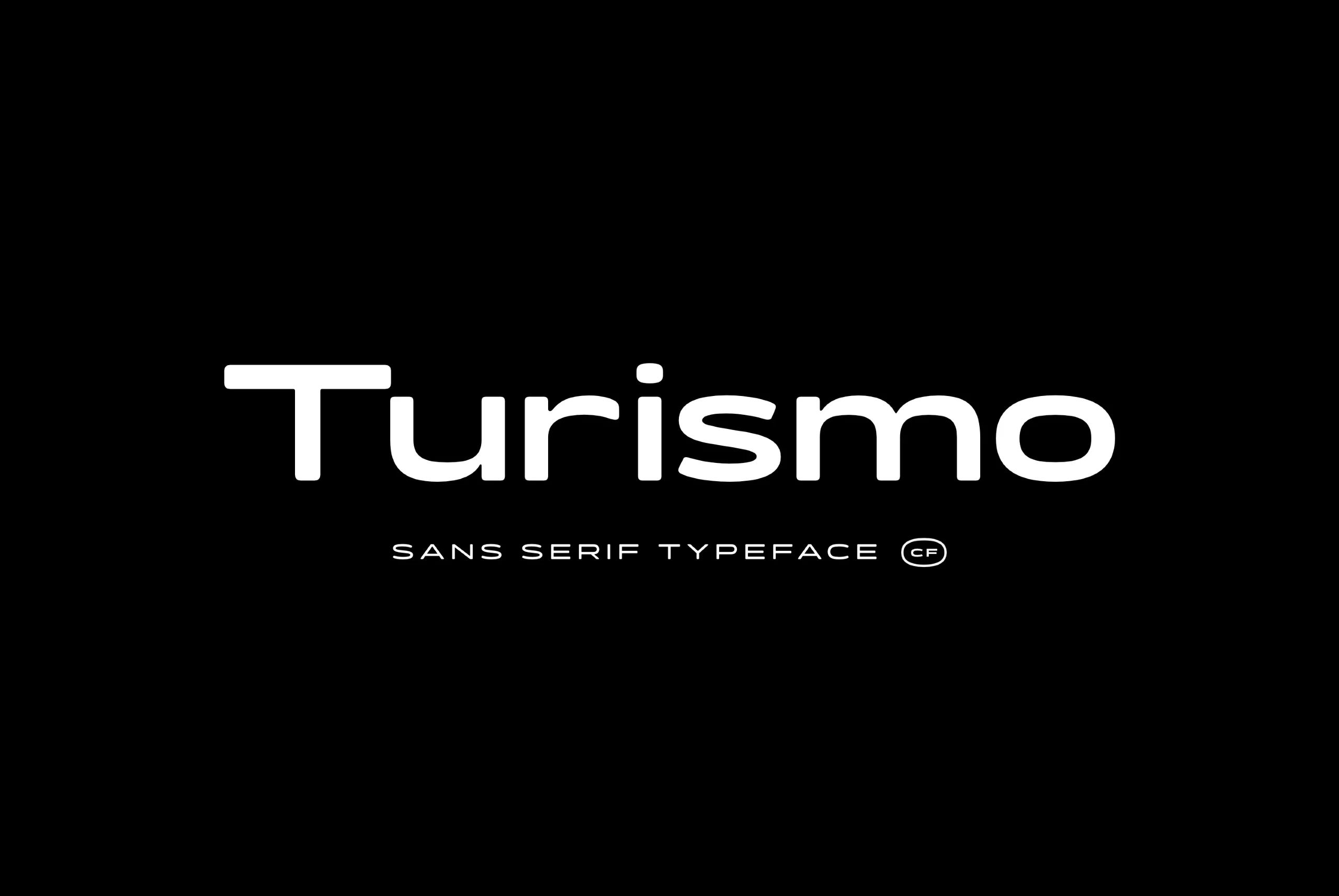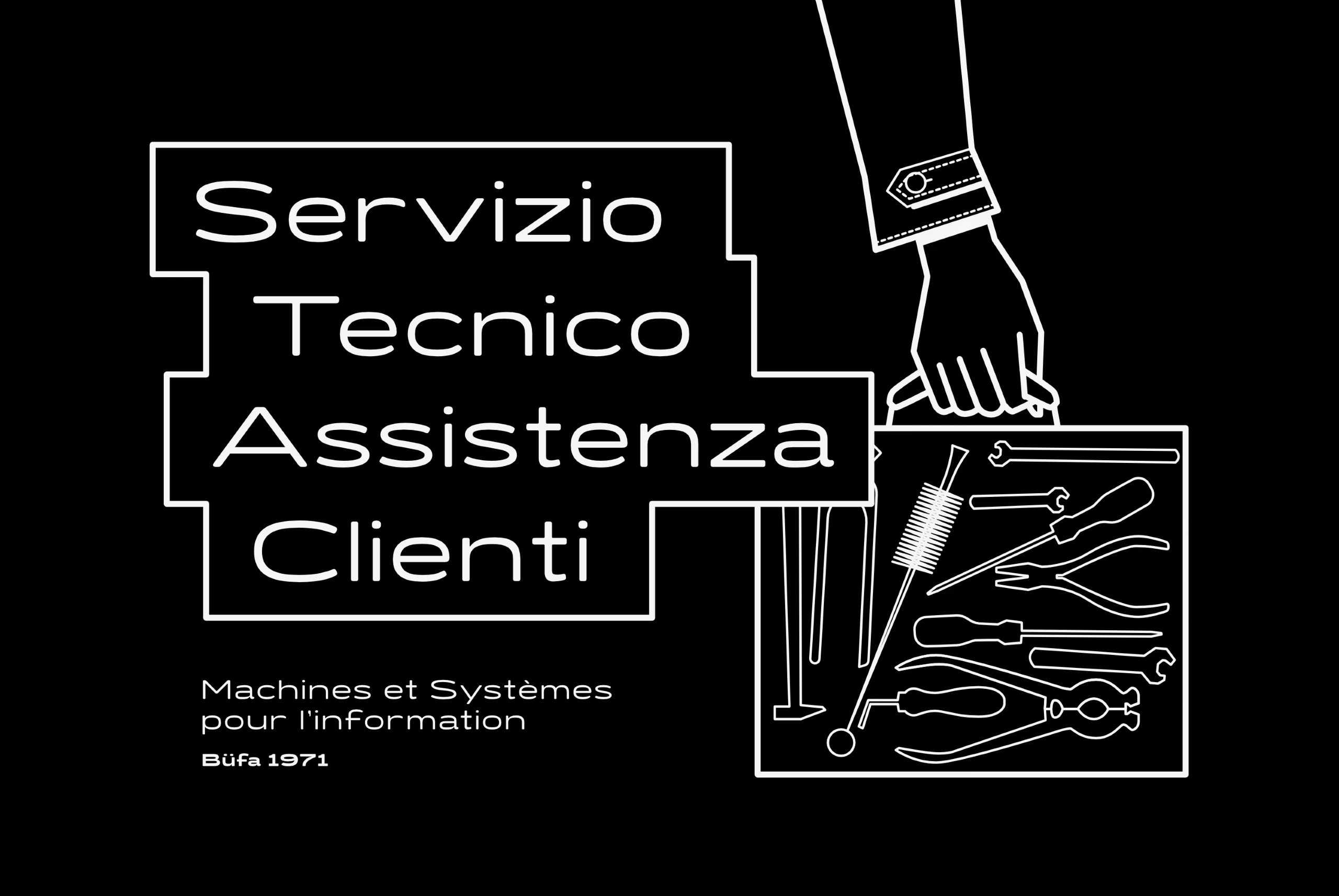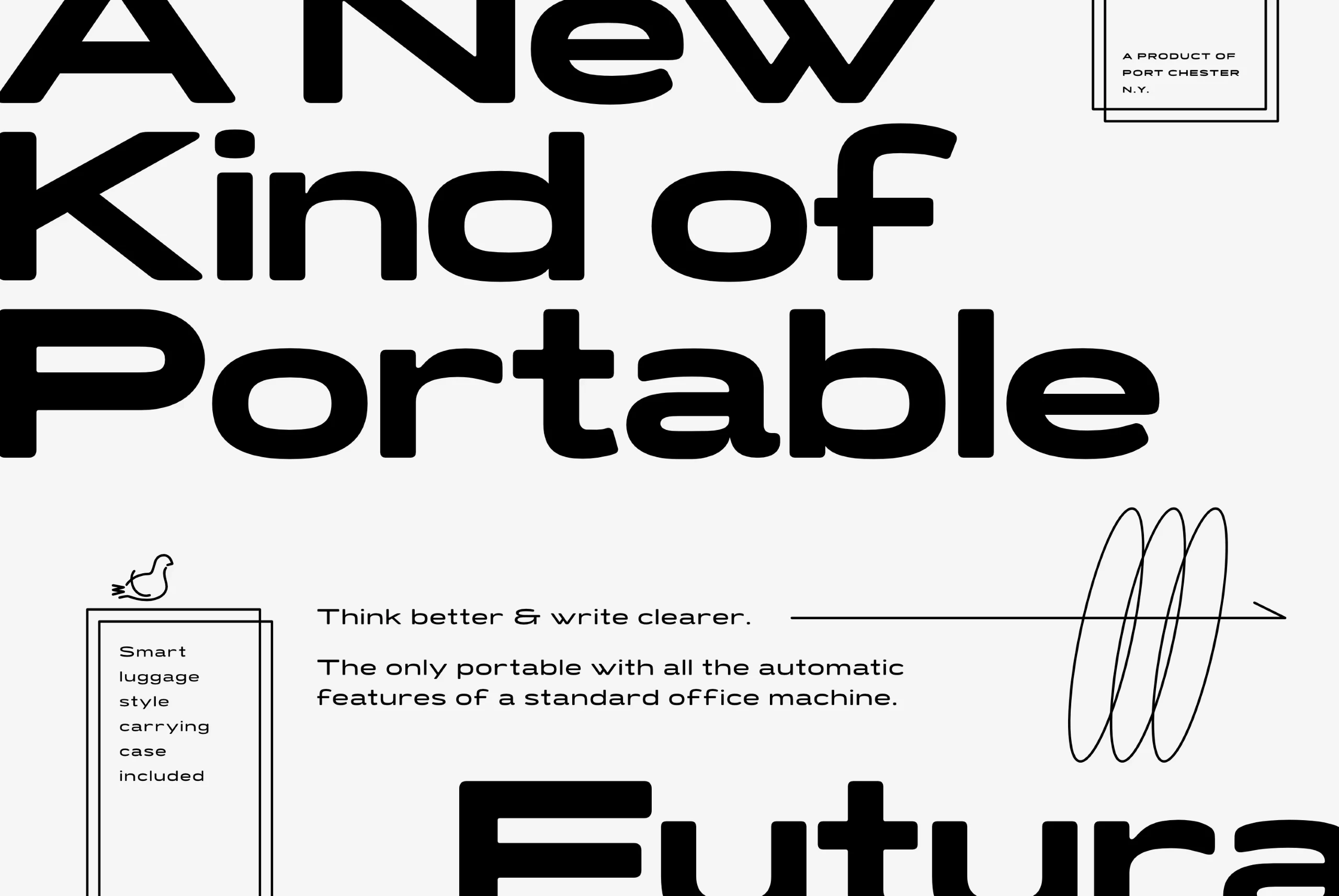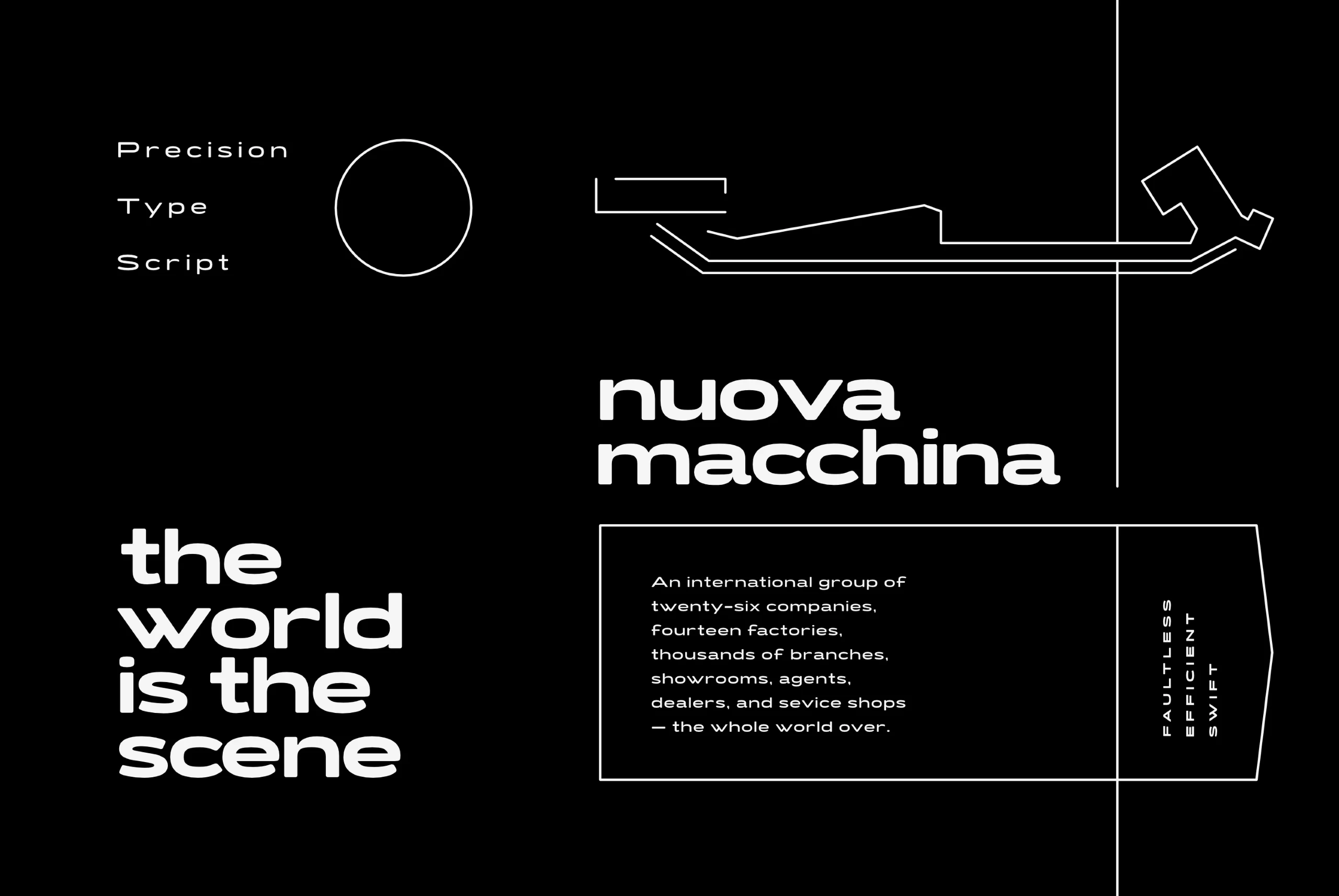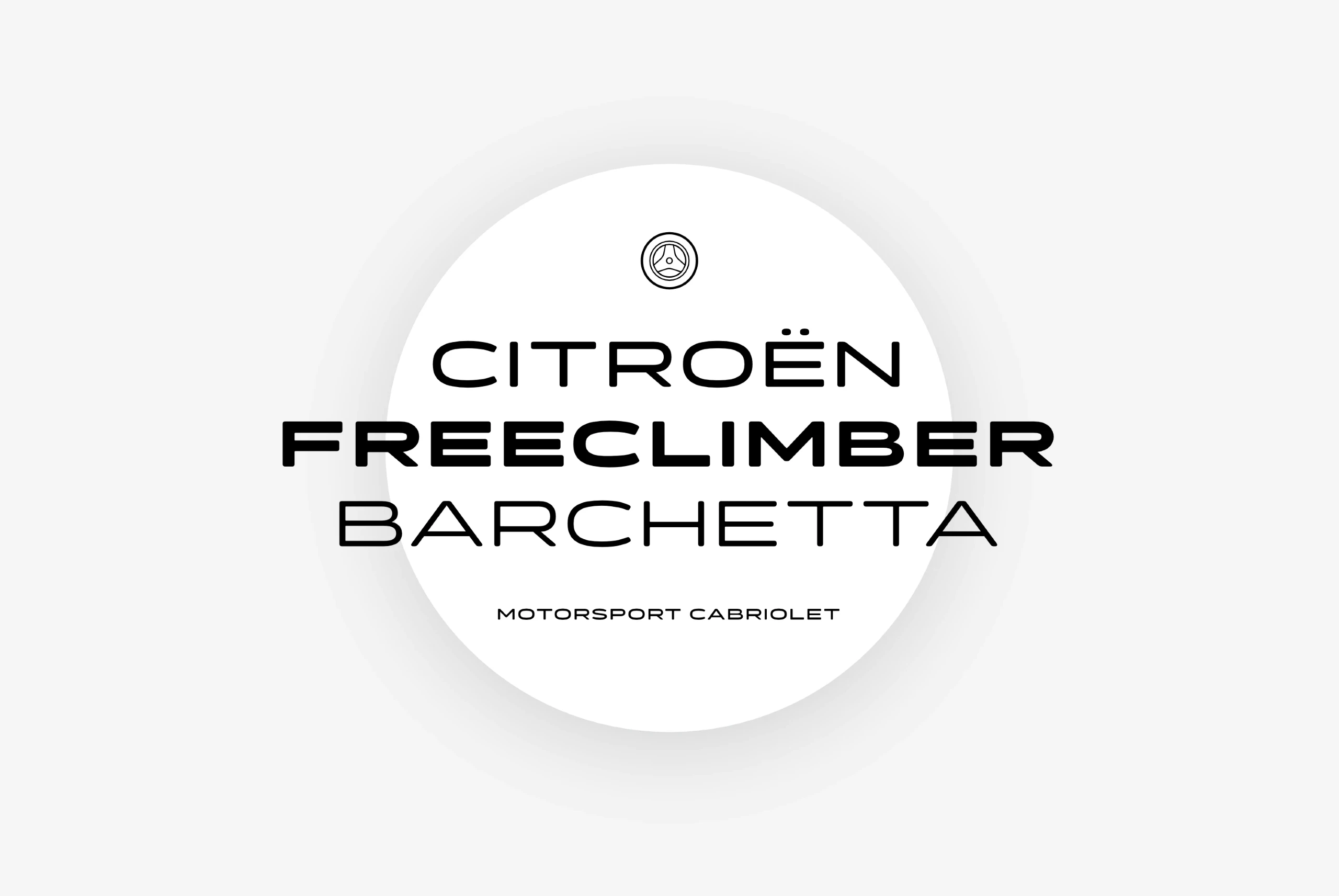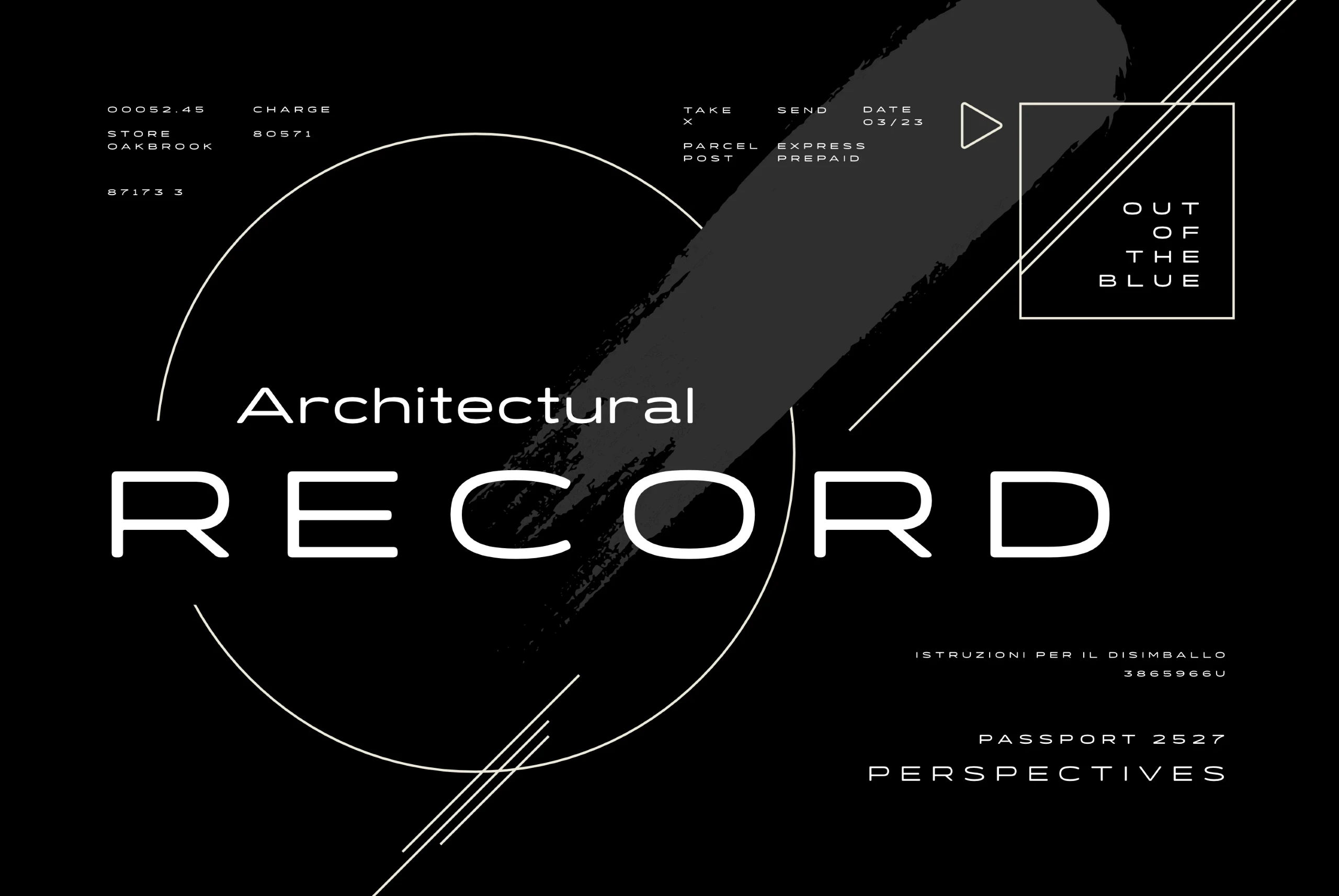
Turismo
Inspired by midcentury motorsports, technology, and business, Turismo CF is designed for stunning logotypes and gripping headlines. Taking cues from both the 1960s and 1920s, Turismo combines strong rectangular shapes with sloping, elongated curves.
seven Weights in Latin & Cyrillic Script
Language support includes Belarusian, Bulgarian, Catalan, Chinese Pinyin, Croatian, Czech, Danish, Dutch, English, Filipino, Finnish, French, Fula, German, Hungarian, Indonesian, Italian, Latvian, Macedonian, Malay, Maltese, Norwegian, Polish, Portuguese, Romanian, Russian, Serbian, Slovak, Slovenian, Spanish, Swedish, Turkish, Ukrainian, Uzbek